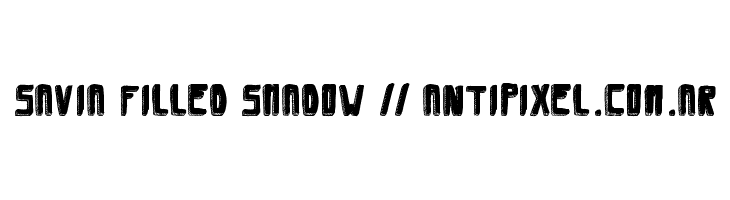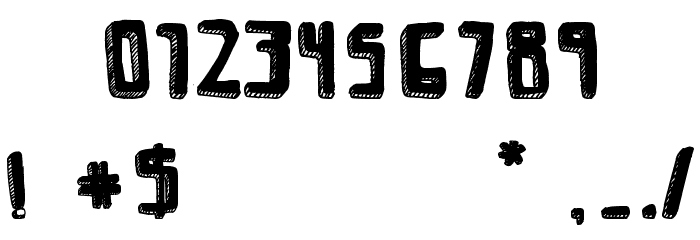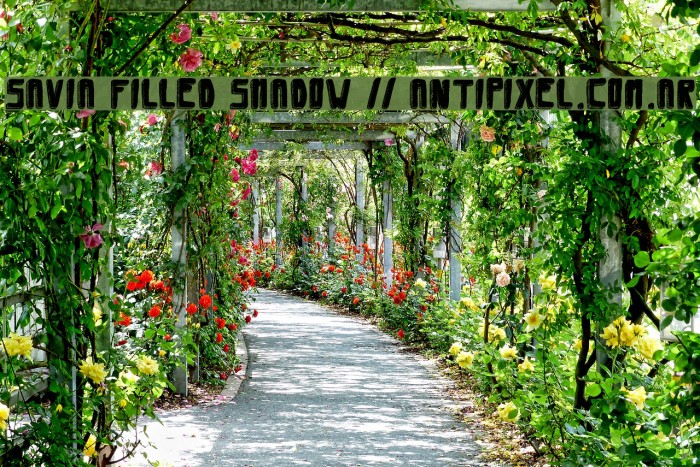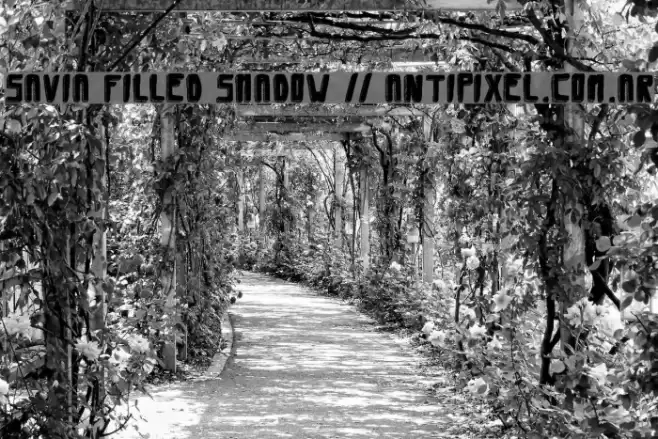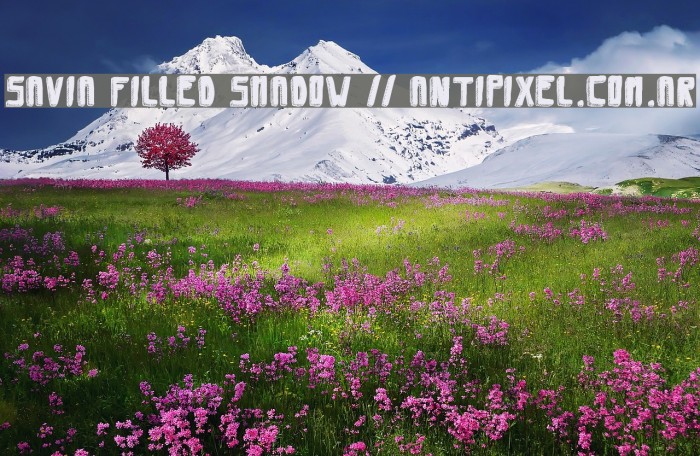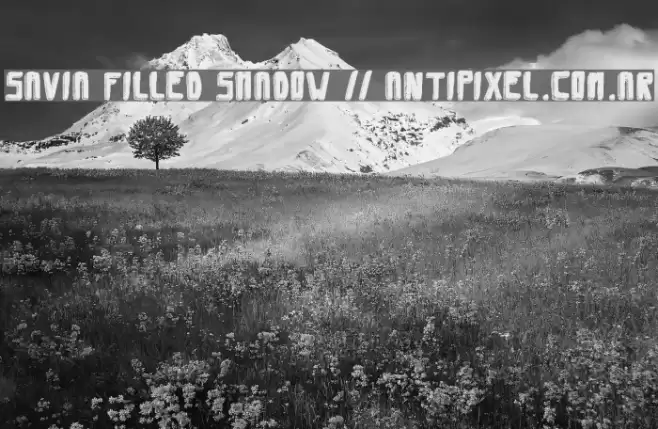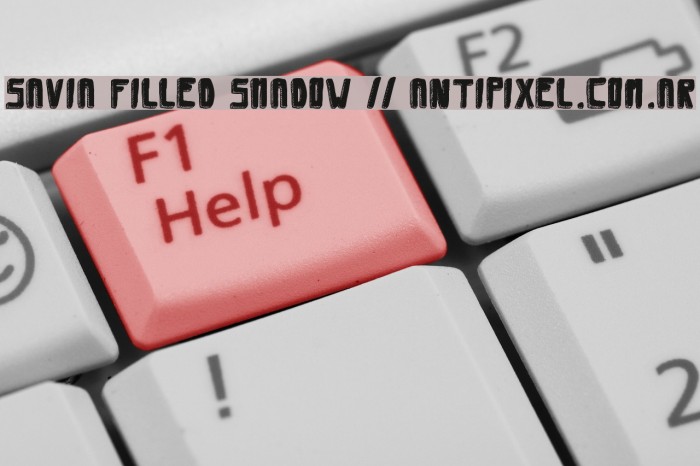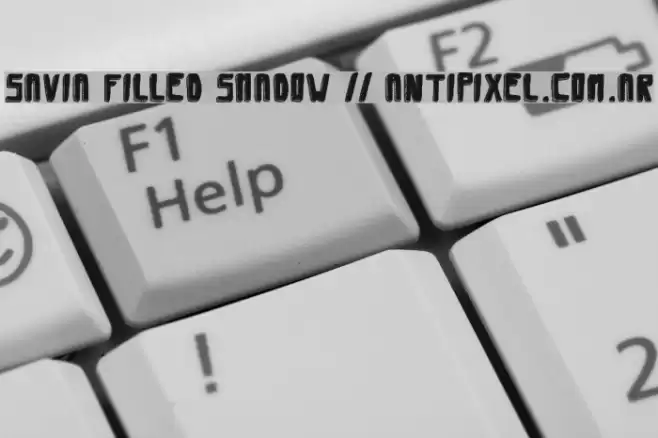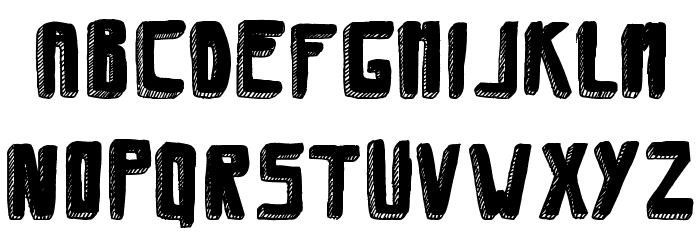
Savia Filled Shadow // ANTIPIXEL.COM.AR Font
Savia Filled Shadow // ANTIPIXEL.COM.AR Description
This font features a bold, playful style with a filled shadow effect that gives it a three-dimensional appearance. The characters are uppercase and lowercase letters, along with numbers and a selection of special characters. Each letter is filled with a textured pattern that adds depth and visual interest. The font has a hand-drawn, artistic feel, making it ideal for creative projects. The shadow effect is consistent across all characters, enhancing the overall cohesion of the design. The font's unique style makes it stand out, perfect for attention-grabbing headlines or artistic displays.
A bold, playful font with a filled shadow effect and textured pattern from Cartoon fonts.
- Proposed Projects: Ideal for posters, branding, packaging, and creative design projects that require a bold and artistic touch.